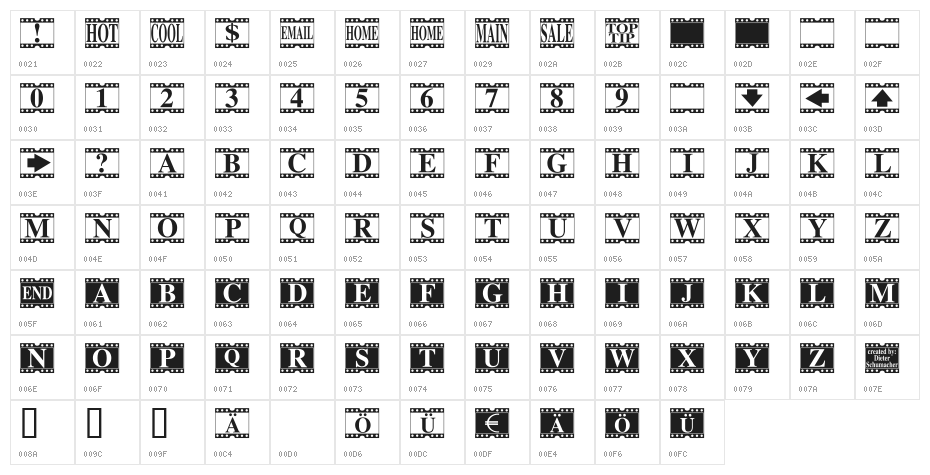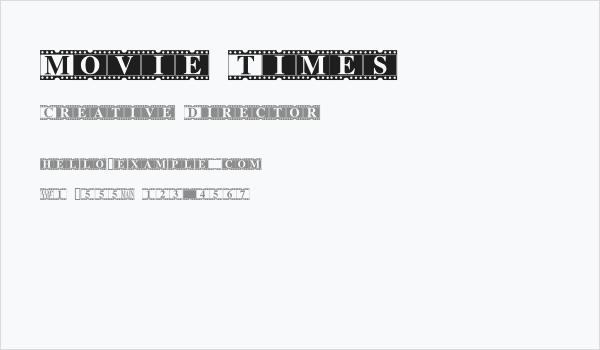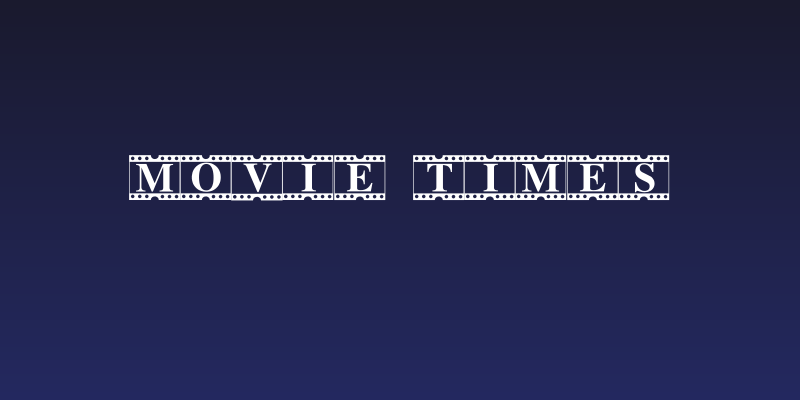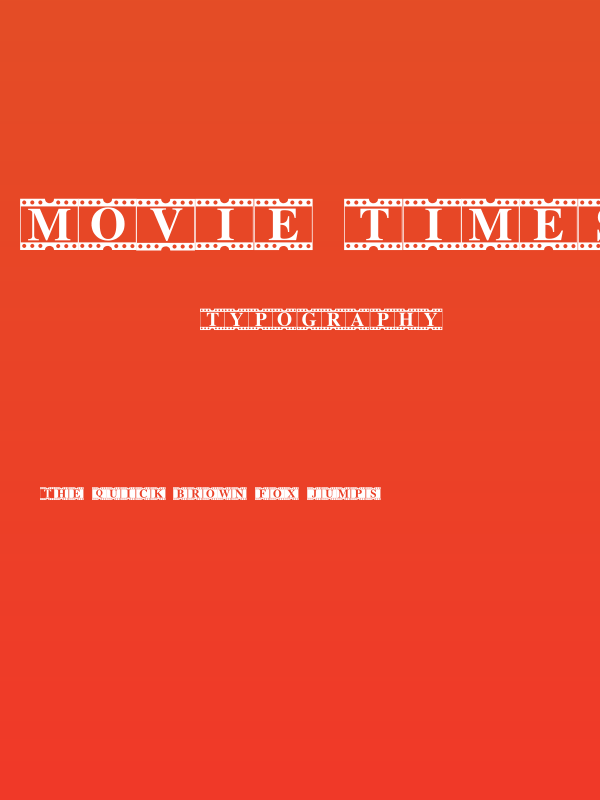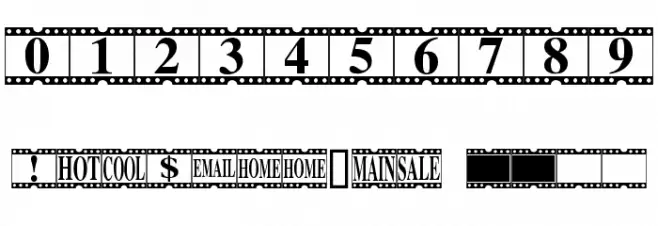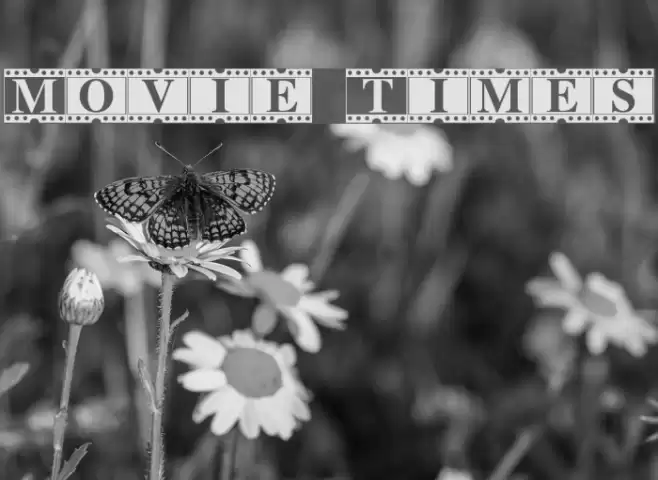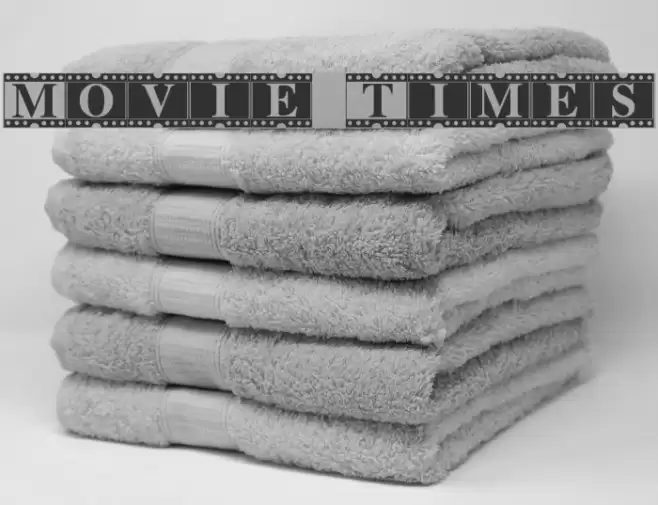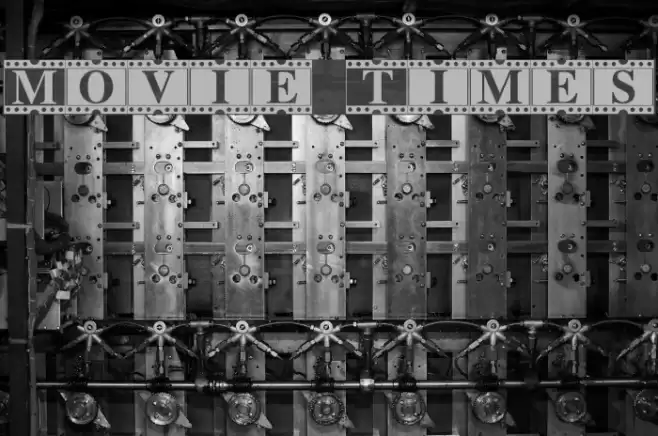
Movie Times Font
Movie Times Description
This font is designed to resemble a classic film strip, with each character encased in a rectangular frame that mimics the perforated edges of traditional movie reels. The letters and numbers are bold and capitalized, providing a strong visual impact. The style is distinctly decorative, capturing the essence of vintage cinema. The characters are evenly spaced within their frames, ensuring clarity and readability. This unique design is perfect for projects that aim to evoke a sense of nostalgia or pay homage to the golden age of film.
| Proposed Projects | Ideal for movie posters, film festival branding, retro-themed events, and any project requiring a cinematic touch. |